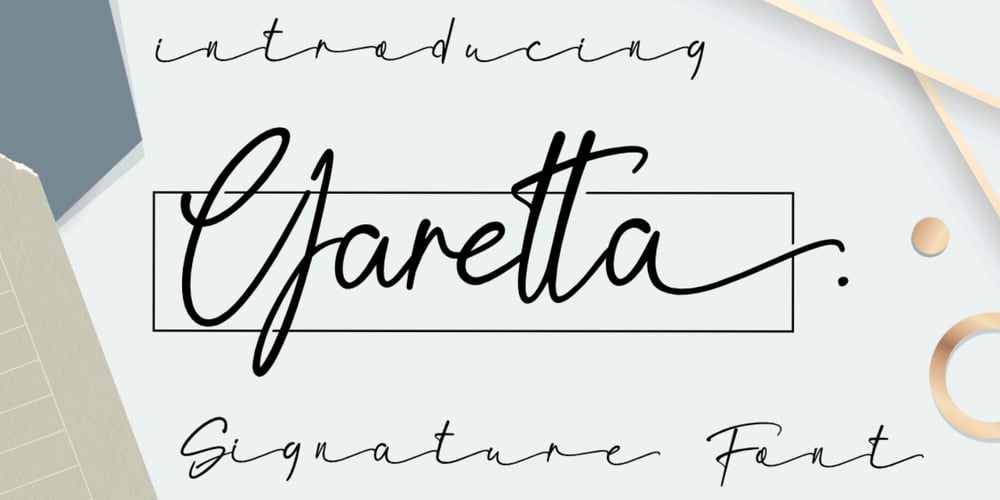
Garetta
Garetta font
Garetta Font Family was designed by Bayu Aji Fais Mursid and published by Bayuktx. Garetta contains 1 styles and family package options. Hello,Thank you for visiting my products, we will give you the best choice.Garetta Signature Font, This font is made with a high premium quality level which you can use as flyers, quotes, posters, banners, packaging, merchandise, logotypes and much more.FEATURES :* Uppercase* Lowercase* Number* Punctuation* Multilingual* PUA Encode* OpentypeFILES INCLUDED :* Garetta. Thank you